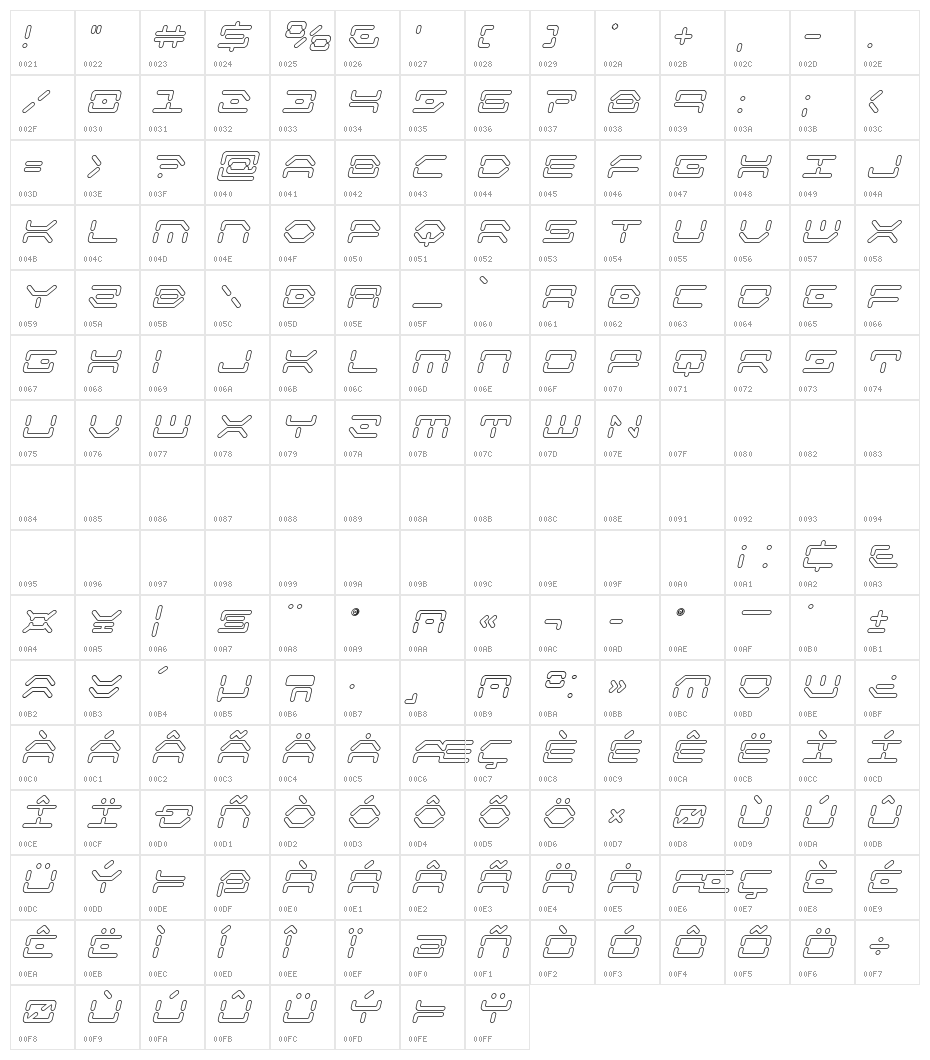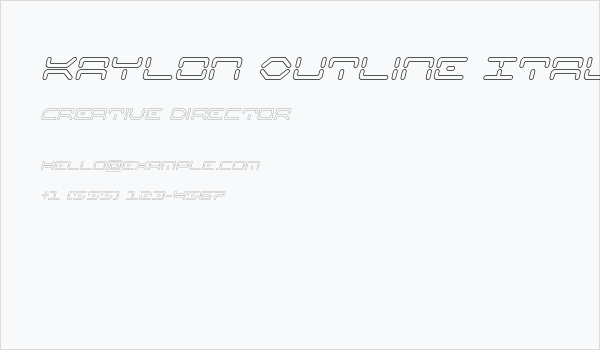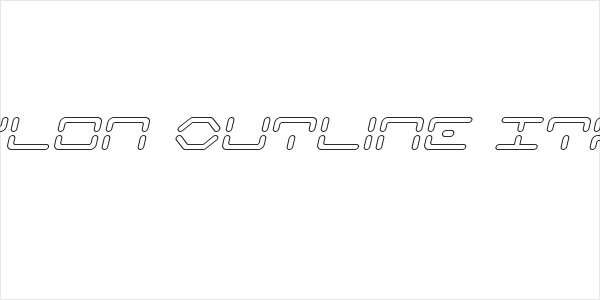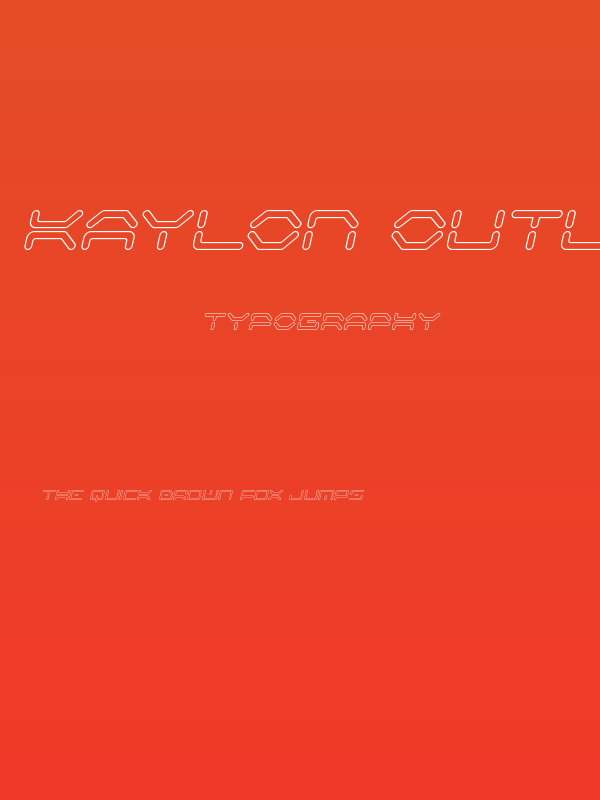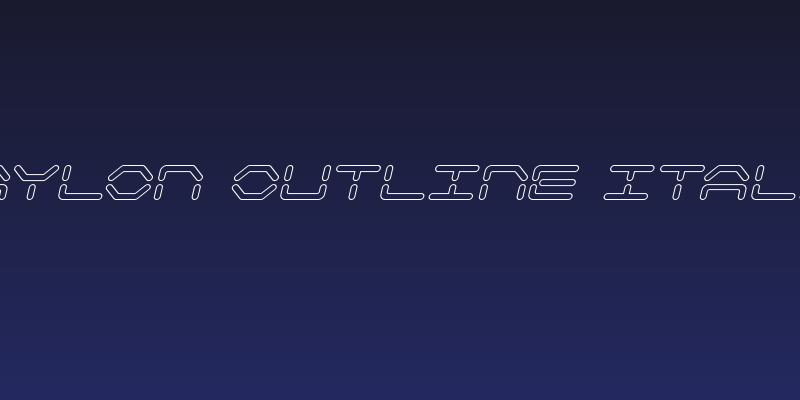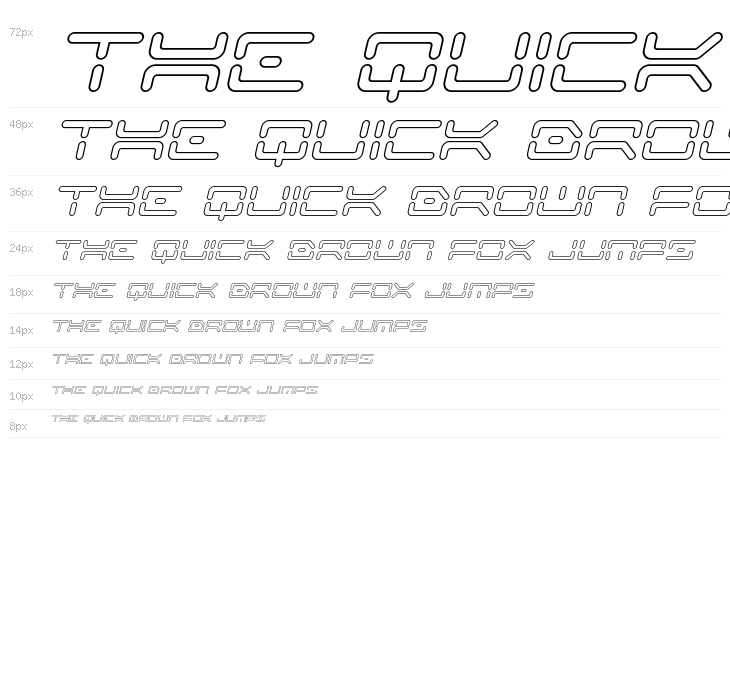
Kaylon Outline Italic Font
Kaylon Outline Italic Description
This font features a unique outline style with a futuristic and geometric design. The characters are constructed with clean, continuous lines that form an open, airy structure. Each letter and number maintains a consistent width, giving the font a uniform appearance. The italic slant adds a dynamic and forward-moving feel, enhancing its modern aesthetic. The font includes a full set of uppercase and lowercase letters, numbers, and a variety of special characters. Its distinctive outline style makes it stand out, suitable for projects that require a bold and innovative look.
| Proposed Projects | Ideal for sci-fi themed designs, tech branding, digital art, and modern advertising. |